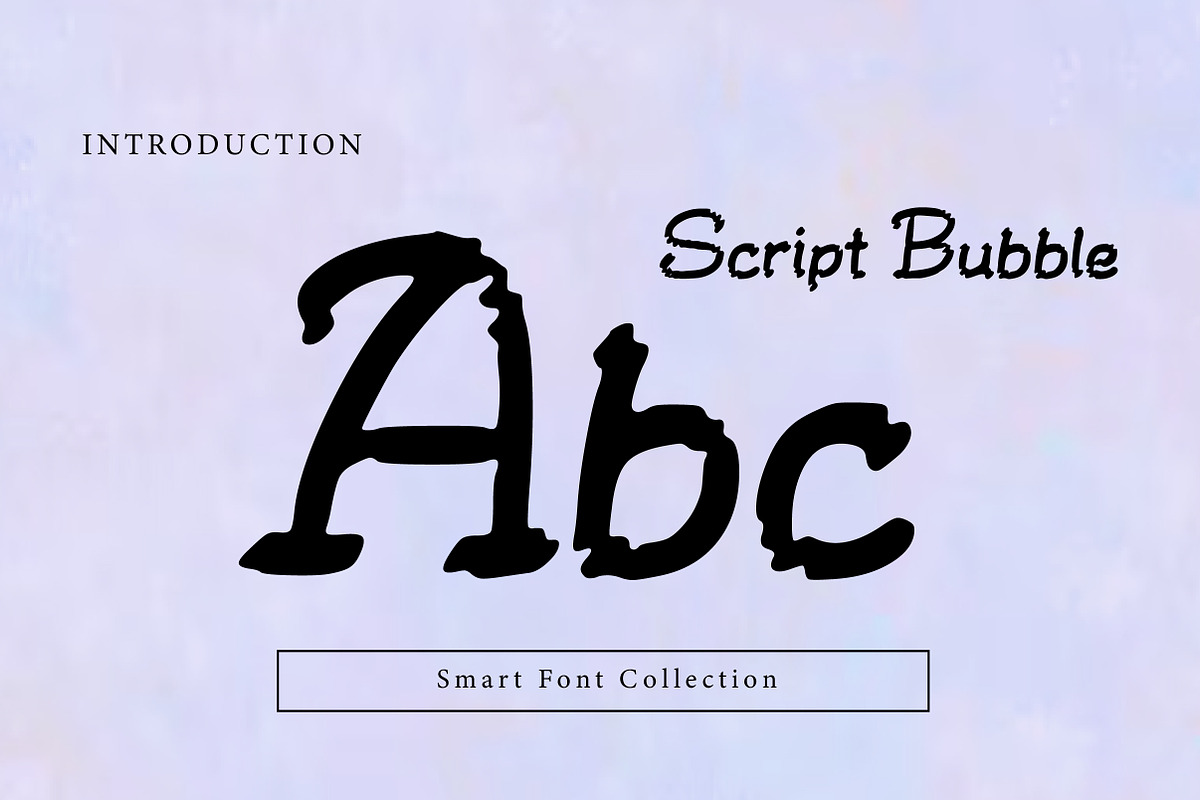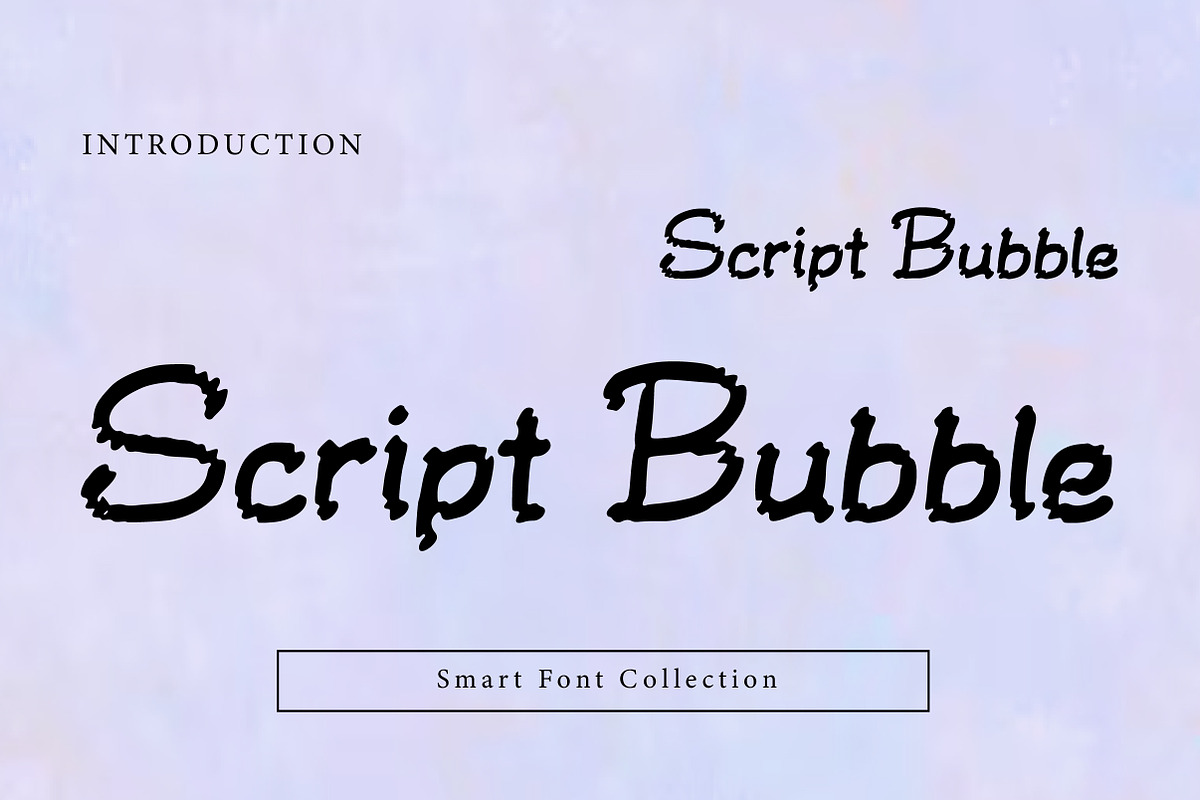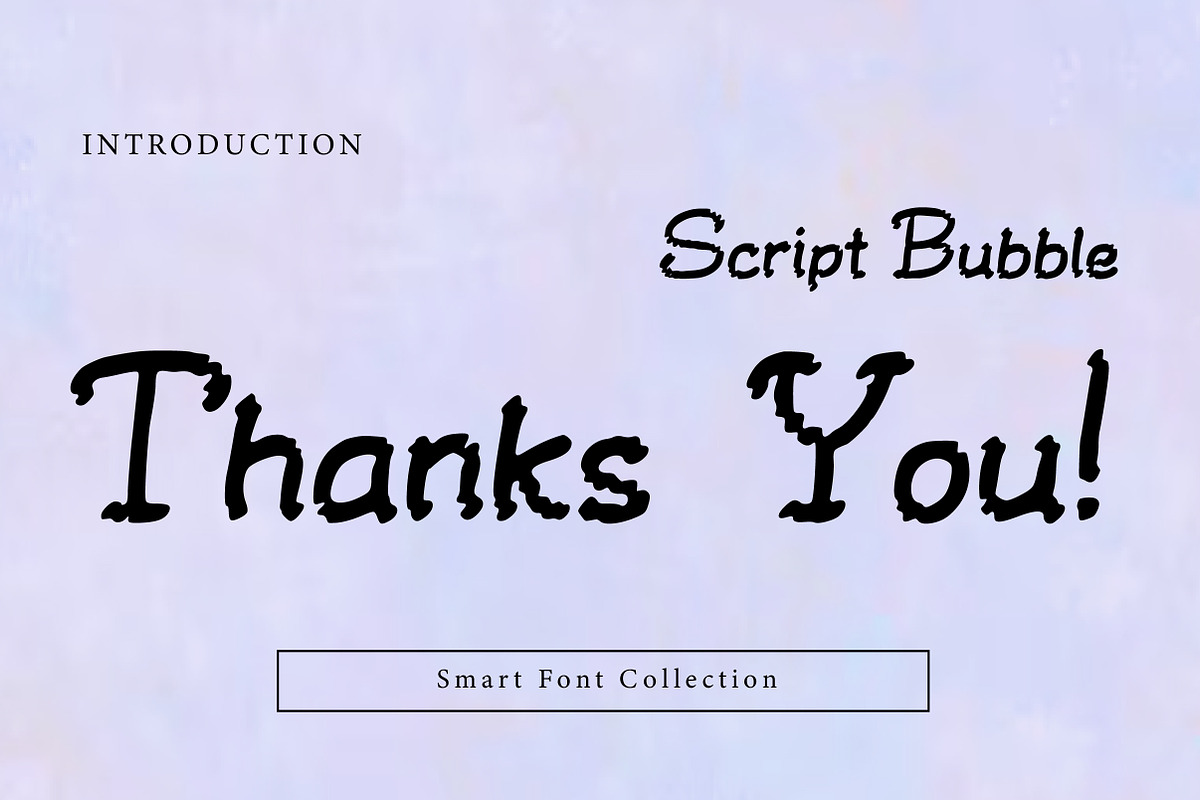
Script Bubble
Script Bubble is a bold, playful script font with a bubbly handwritten flow and a lightly rough, inked texture. Its smooth curves and chunky strokes create a friendly, energetic look—perfect for logos, packaging, stickers, quotes, posters, social media graphics, and fun branding. Script Bubble blends casual script charm with strong display impact, making it ideal for designs that want to feel lively, handcrafted, and full of personality.